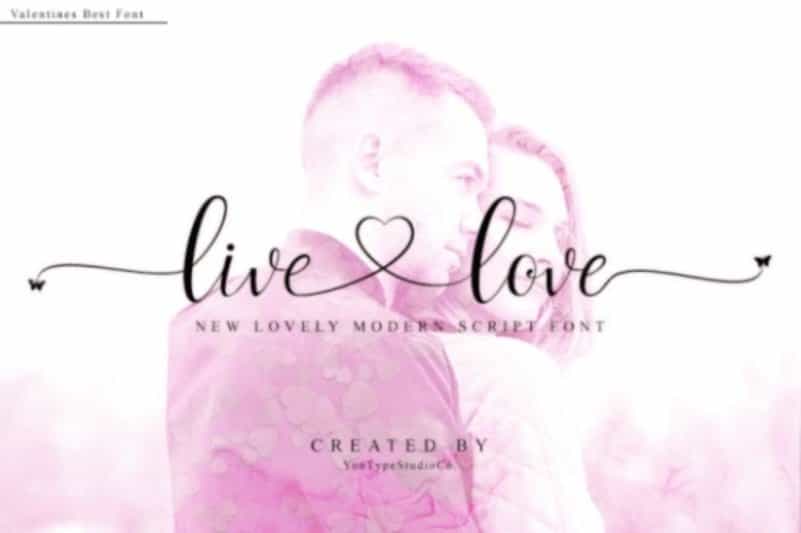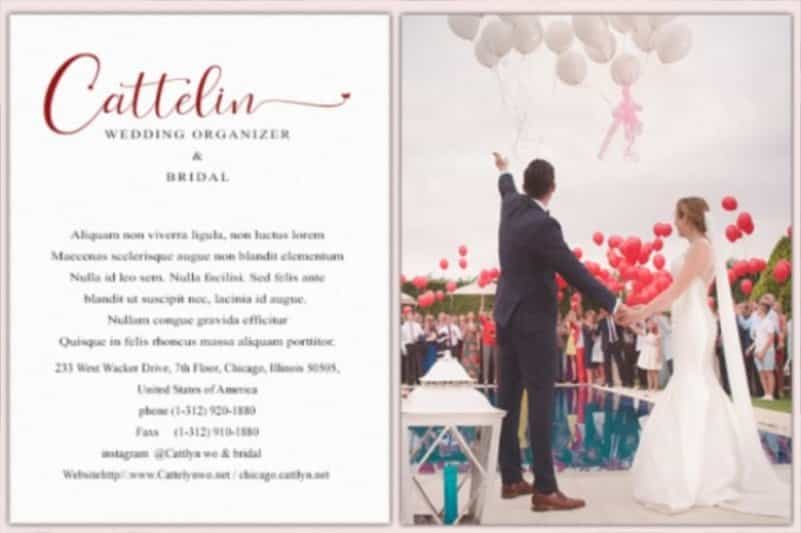
Live Love is a pure texture hand-drawn calligraphy font. This font is great for wedding invitations, logos and branding this font included complete Lowercase and Uppercase punctuation Numbers and Super Multilingual Support ( This font included several fi…tures of swashes that are very unique and good looking What you get, darling?